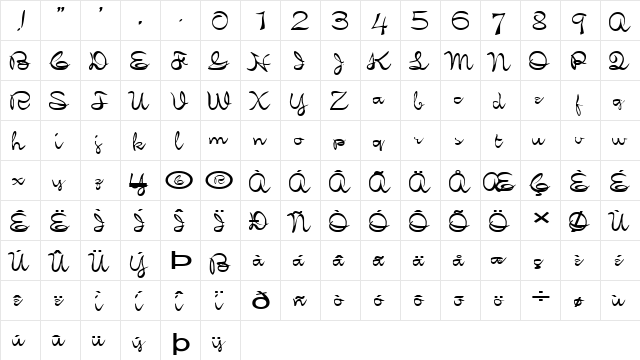
FZ SCRIPT 21 EX Normal
Design Context for FZ SCRIPT 21 EX Typeface
FZ SCRIPT 21 EX flows with the natural rhythm of handwritten lettering, making it ideal for designs that call for warmth and personal expression.
Font Pairing: Combine FZ SCRIPT 21 EX with a simple geometric sans for maximum contrast — the tension between flowing curves and clean structure is a classic typographic pairing.
Pro Tip: Use FZ SCRIPT 21 EX for short runs of text — names, titles, or taglines. Extended body copy in script faces tires the eye quickly.